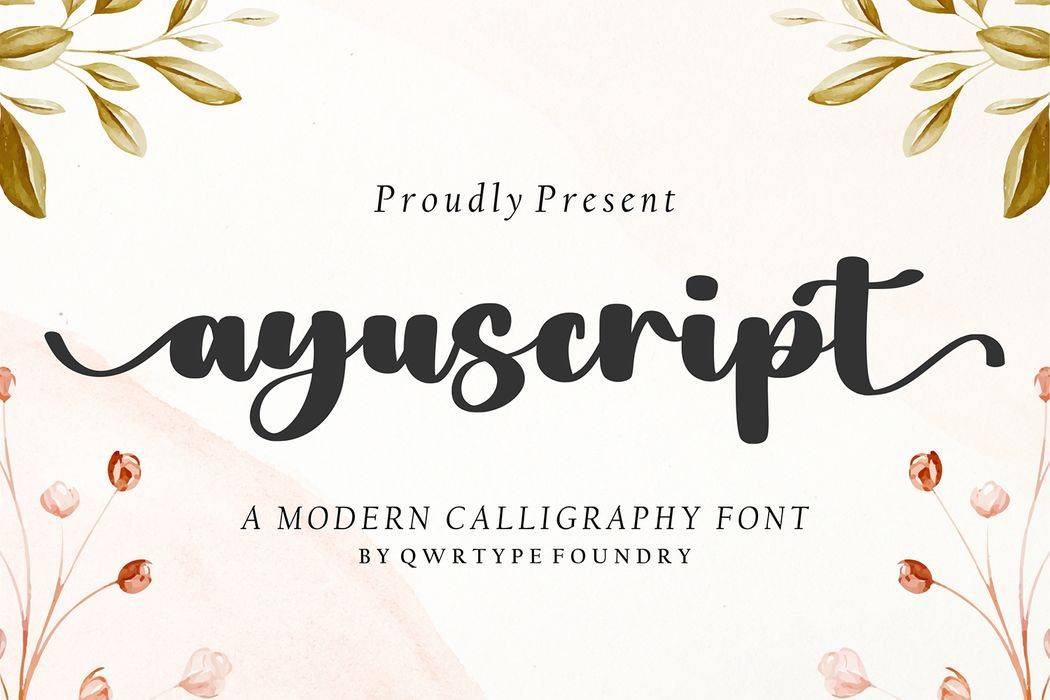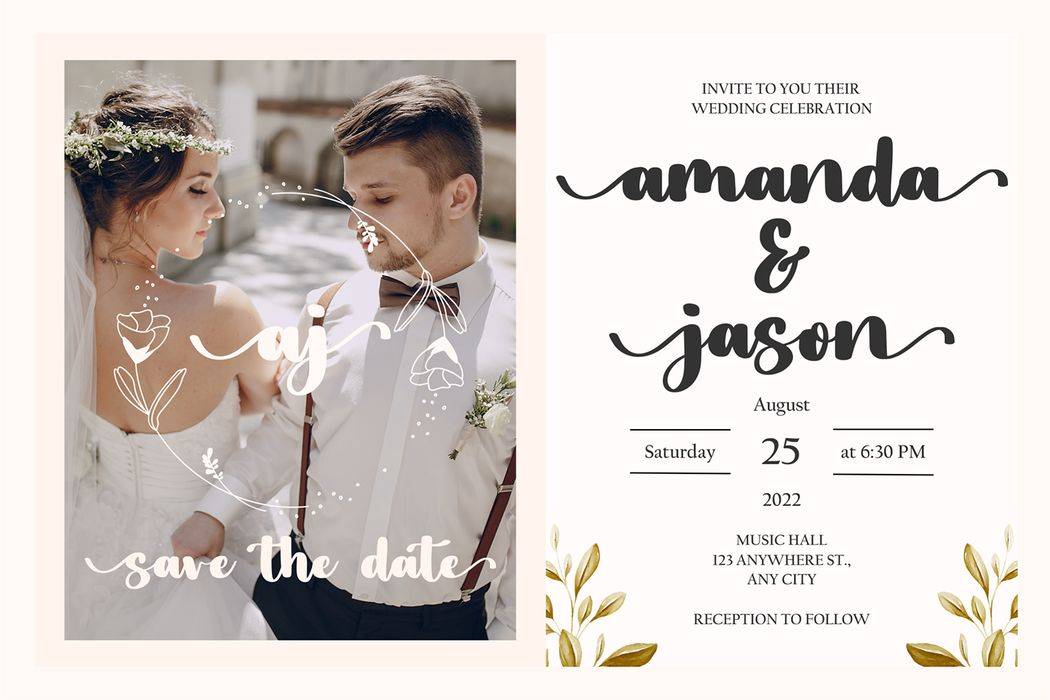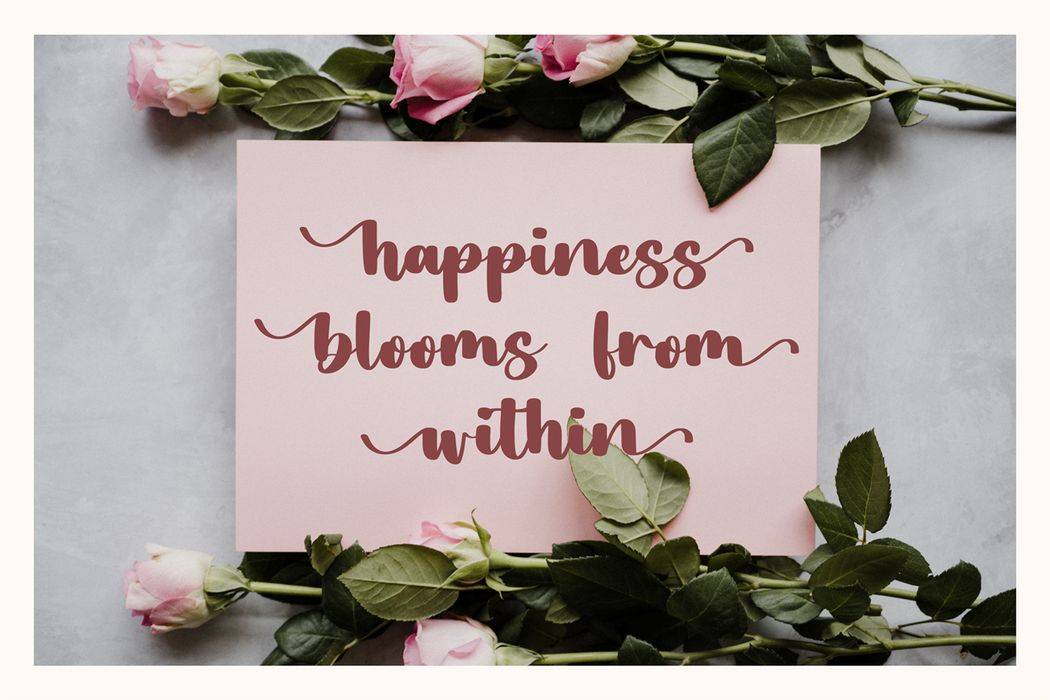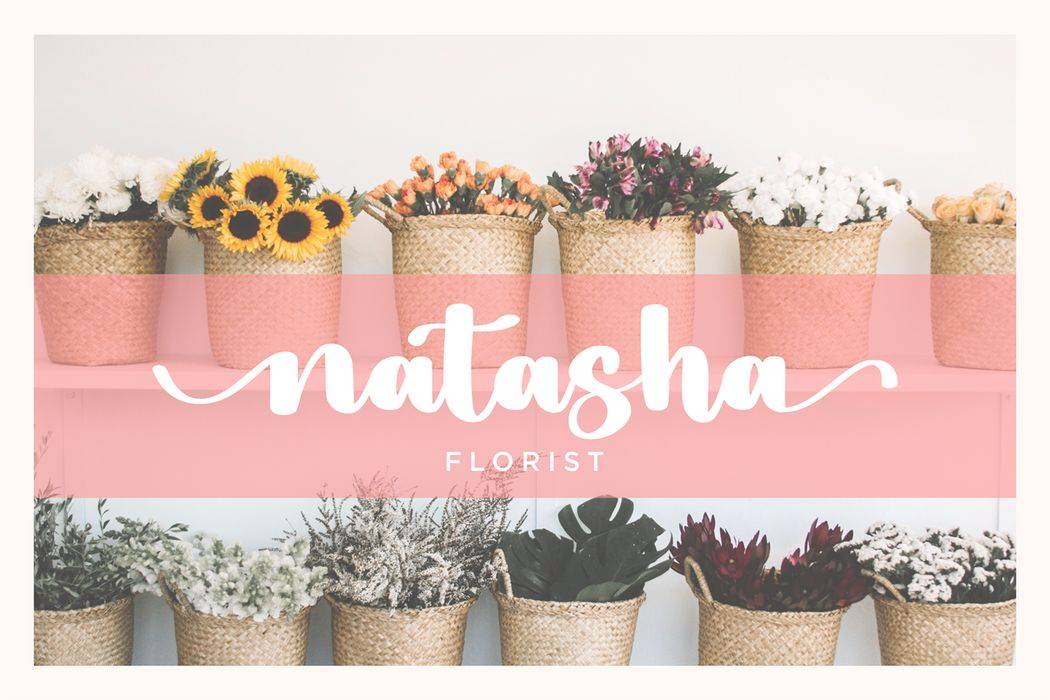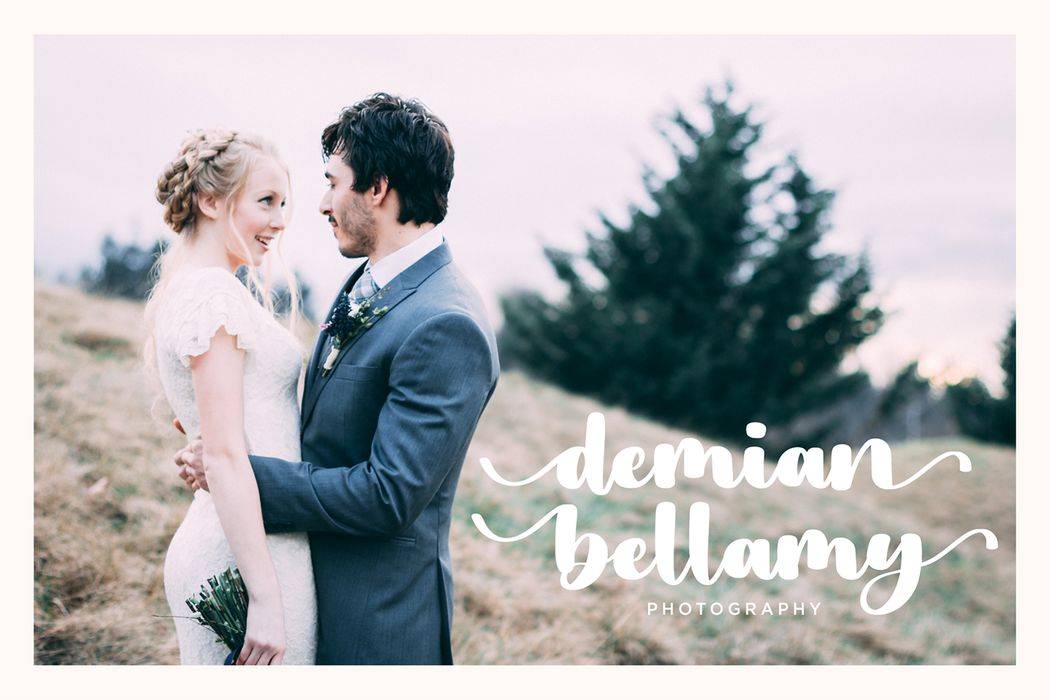
Ayuscript is a lively and bold script font with thick, rounded strokes and playful, flowing letterforms. Its casual, handwritten style is perfect for adding a friendly yet stylish touch to branding, invitations, and creative headlines. This font works well in designs that seek to convey warmth and personality while maintaining clear readability.
Ayuscript Font
About Ayuscript Font